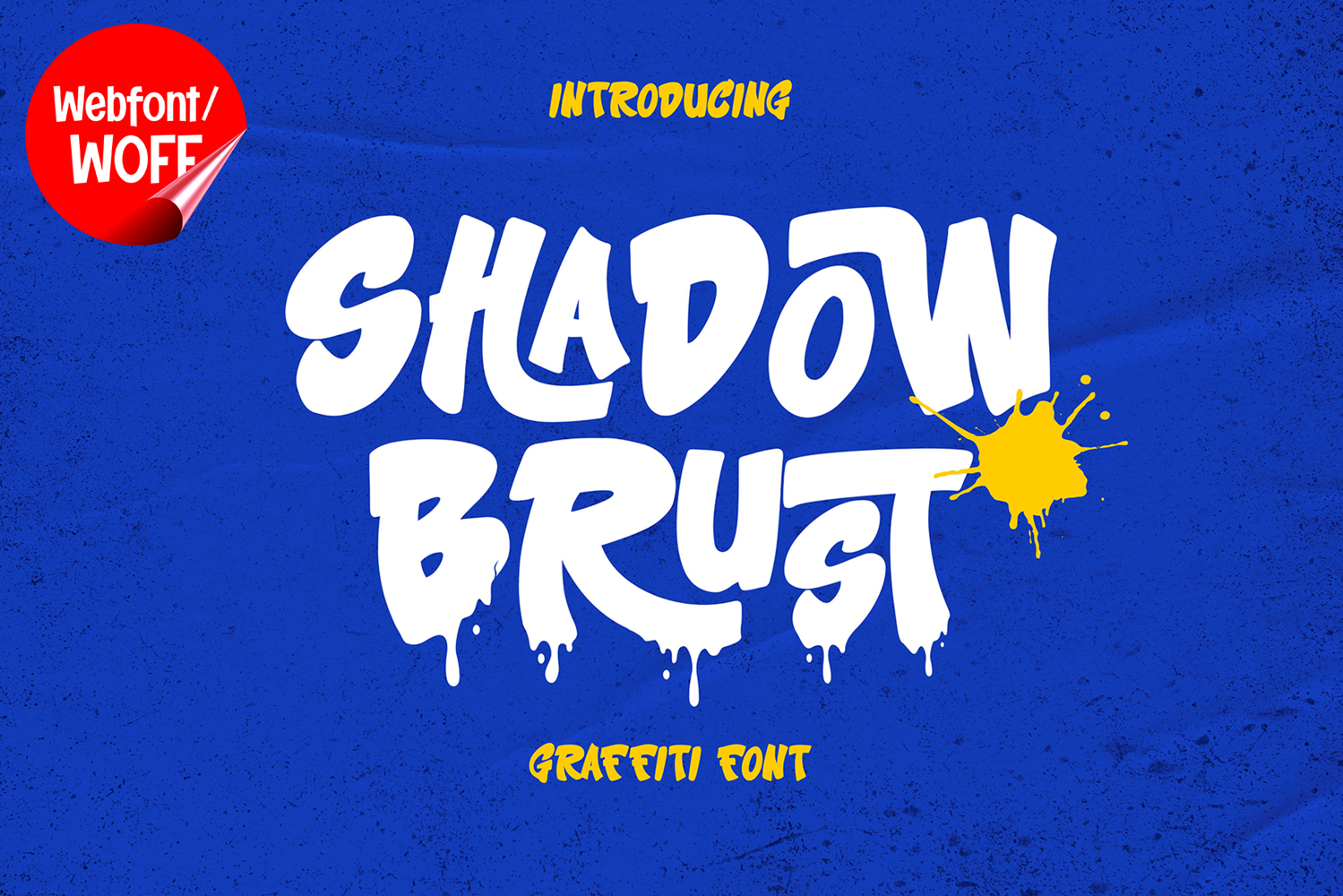
Shadow Burst | Graffiti Webfont for Bold Urban Street Design
Shadow Burst is a graffiti webfont designed to bring bold street-art energy and modern urban aesthetics into website design. Inspired by spray-paint murals, freestyle graffiti lettering, and underground tagging culture, this font features expressive shapes and dynamic movement that create a strong and eye-catching visual identity. It is an excellent choice for projects that aim to deliver authentic graffiti visuals with high visual impact and edgy street-style character.
Shadow Burst includes a complete set of uppercase characters designed with graffiti-inspired aesthetics. The letterforms feature bold curves, energetic strokes, and layered visual movement that create a dramatic street-art appearance inspired by urban wall murals and spray-paint culture. These characteristics make it ideal for headlines, banners, hero sections, promotional graphics, and featured content where strong urban visuals are needed.
In addition to letters, the font includes numbers and punctuation, allowing flexible usage across various parts of a website. It works well for streetwear branding, gaming websites, music platforms, hip hop projects, esports graphics, and creative portfolios. Each character maintains a consistent graffiti style, ensuring a cohesive and unified visual identity throughout the design.
With multilingual support, Shadow Burst includes a wide range of accented characters, making it suitable for international websites and global audiences. This ensures content remains clear and visually consistent across different languages while preserving the expressive and urban graffiti aesthetic.
The graffiti style of Shadow Burst makes it especially suitable for urban-themed websites, entertainment campaigns, youth-oriented branding, and creative digital projects. Its bold structure and energetic appearance create a powerful street-art atmosphere that helps websites stand out in visually competitive environments. The graffiti-inspired forms add movement, intensity, and authentic underground character while maintaining a modern display appearance.
Despite its decorative and highly expressive appearance, Shadow Burst is designed with readability in mind. The spacing and proportions are carefully balanced to ensure clarity, particularly in display sizes. This allows designers to use the font effectively for impactful headings and short content without sacrificing usability.
Shadow Burst is a webfont that combines graffiti aesthetics with modern digital performance. Its bold forms, expressive movement, and urban character create a distinctive typographic presence that enhances website design. For projects that require a strong, edgy, and visually engaging graffiti font, Shadow Burst offers a versatile and powerful solution.